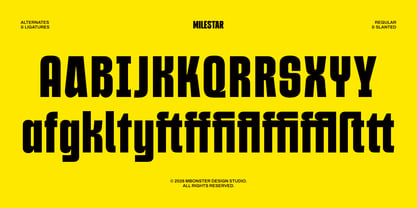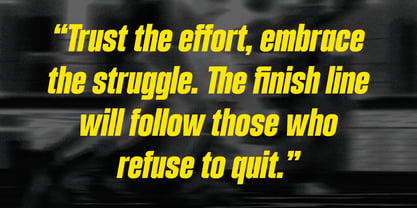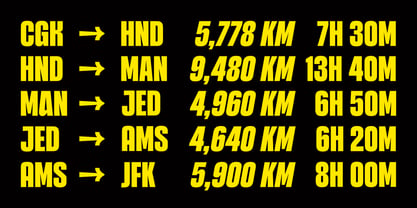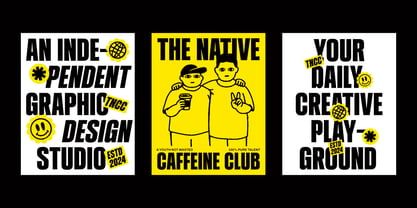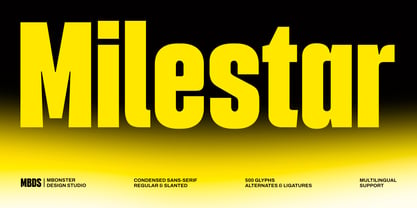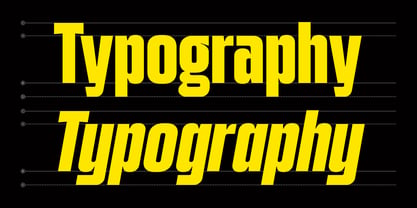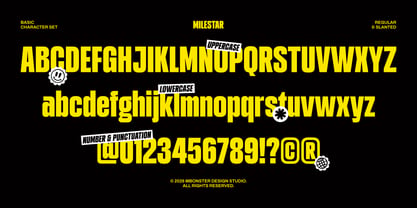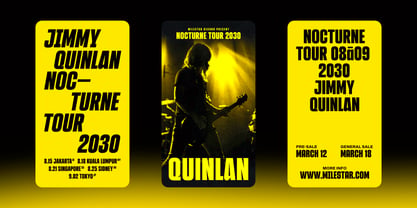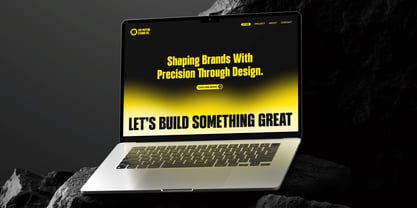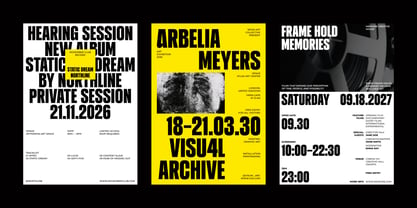
Milestar
by Mbonster
Milestar – Bold Condensed & Compact Display Sans Serif
Milestar is a bold condensed and compact display sans serif designed to deliver maximum visual impact while occupying minimal space. Featuring Regular and Slanted styles, it combines strong geometric proportions, clean construction, and a confident industrial character to create headlines that are bold, modern, and highly legible. Its condensed structure allows more content to fit into tighter layouts without compromising clarity, making it an excellent choice for striking display typography.
Perfect for branding, logos, editorial design, posters, packaging, sports graphics, streetwear, advertising, merchandise, album covers, social media, and motion graphics, Milestar is built for designers who need a typeface that is both space-efficient and visually commanding. With 500+ glyphs, multilingual support, OpenType features, and PUA encoding, Milestar provides the versatility and performance needed for impactful print and digital design projects.
Designers: Rizka Rony Setiawan
Foundry: Mbonster